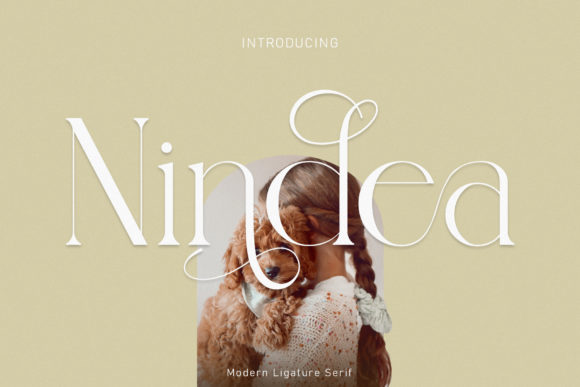
Embark on an enchanting typographic journey with Nindea, the serif font that exudes sophistication and charm. This exquisite creation by Alfinart seamlessly blends contemporary flair with a touch of nostalgia, making it the ideal choice for a myriad of design endeavors.
Nindea's graceful curves and delicate flourishes will add a touch of elegance to your logos, captivating your audience with their timeless allure. Dive into the world of fashion and adorn your magazines with Nindea's refined presence, where each letter dances across the page with effortless grace. Unleash your creativity on social media platforms, as Nindea's versatility shines through, transforming your posts into visually stunning masterpieces.
But Nindea's beauty is more than skin-deep. Its PUA encoding grants you access to a treasure trove of glyphs and swashes, empowering you to unleash your imagination and craft designs that leave a lasting impression. Let Nindea be your muse, inspiring you to create logos that stand out from the crowd, magazine layouts that captivate readers, and social media content that sparks conversations.
Whether you're a seasoned designer or just starting your typographic adventure, Nindea is the perfect companion. Its intuitive nature makes it a joy to use, guiding you effortlessly toward design brilliance. Embrace the allure of Nindea, and let its enchanting presence elevate your creations to new heights of sophistication and style.